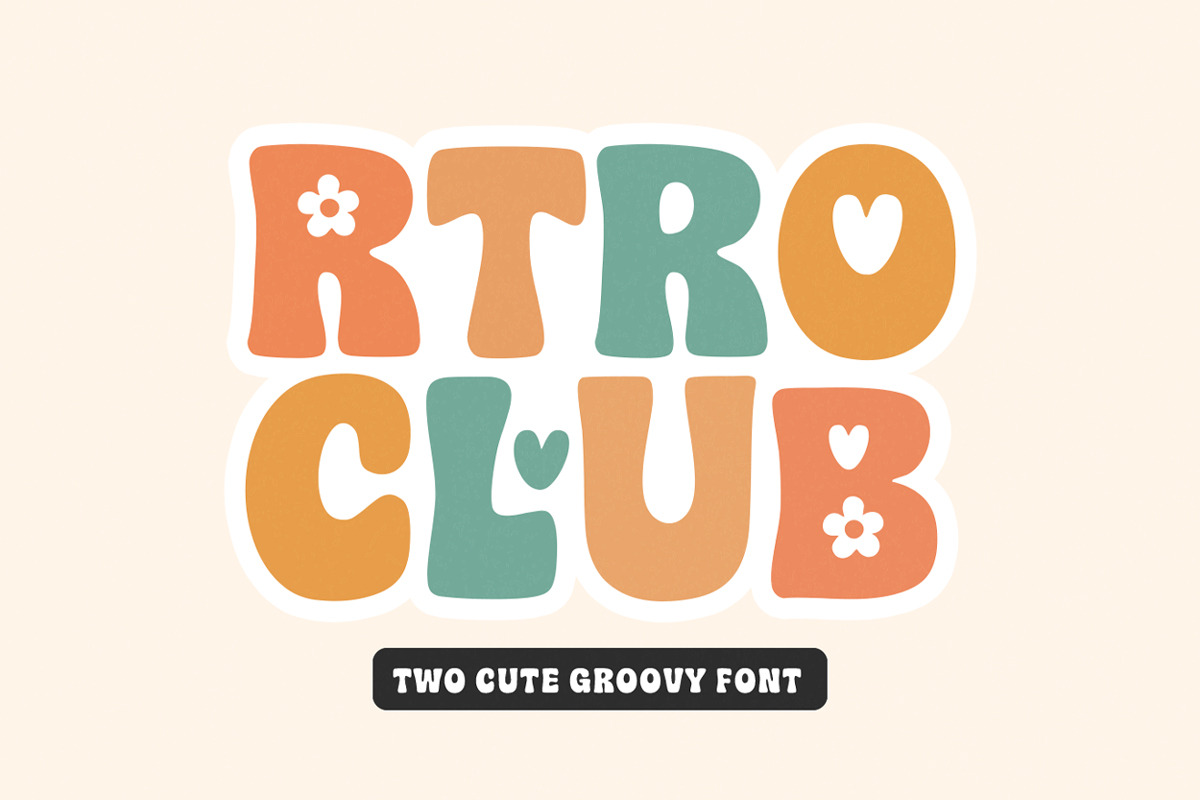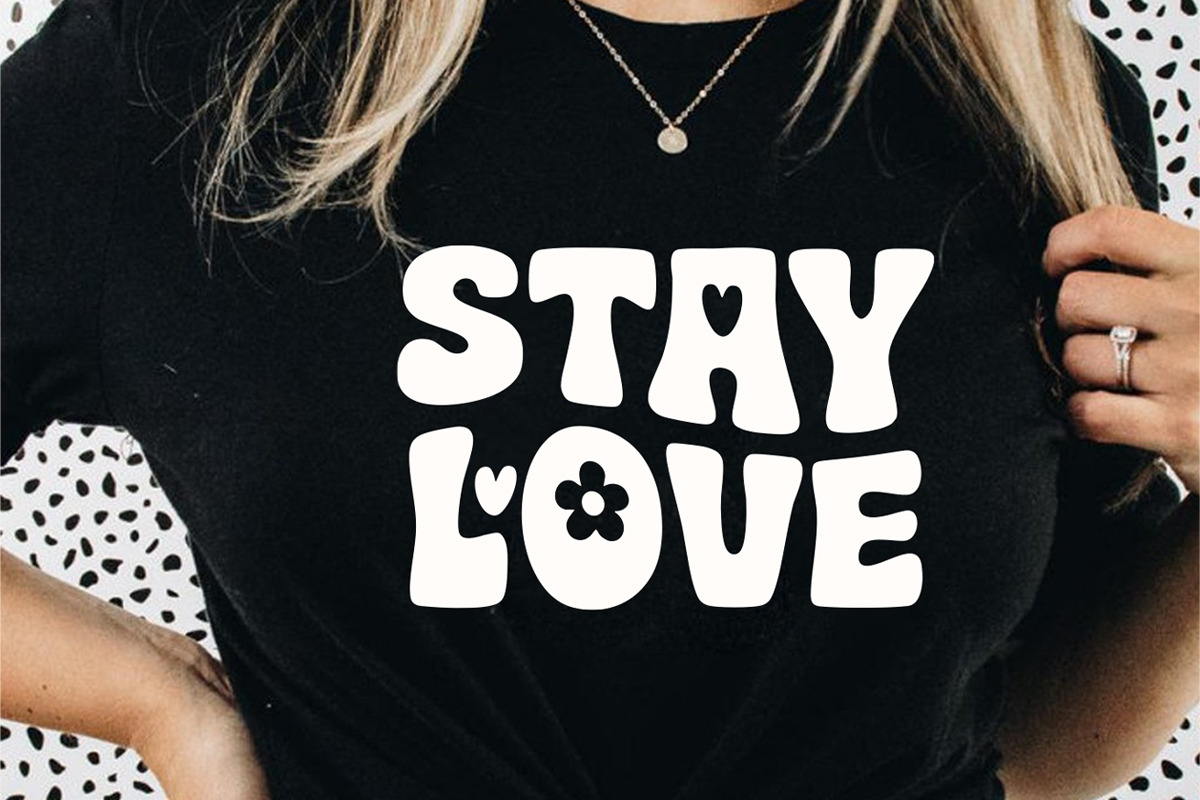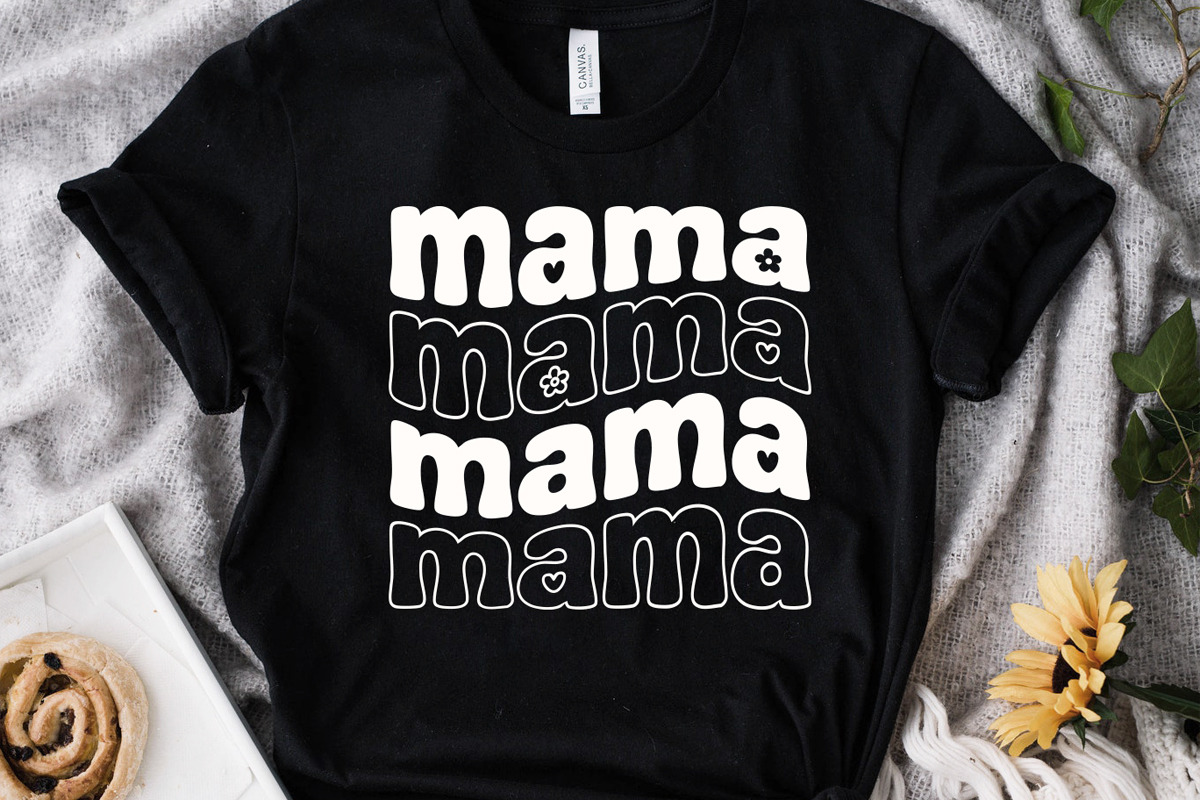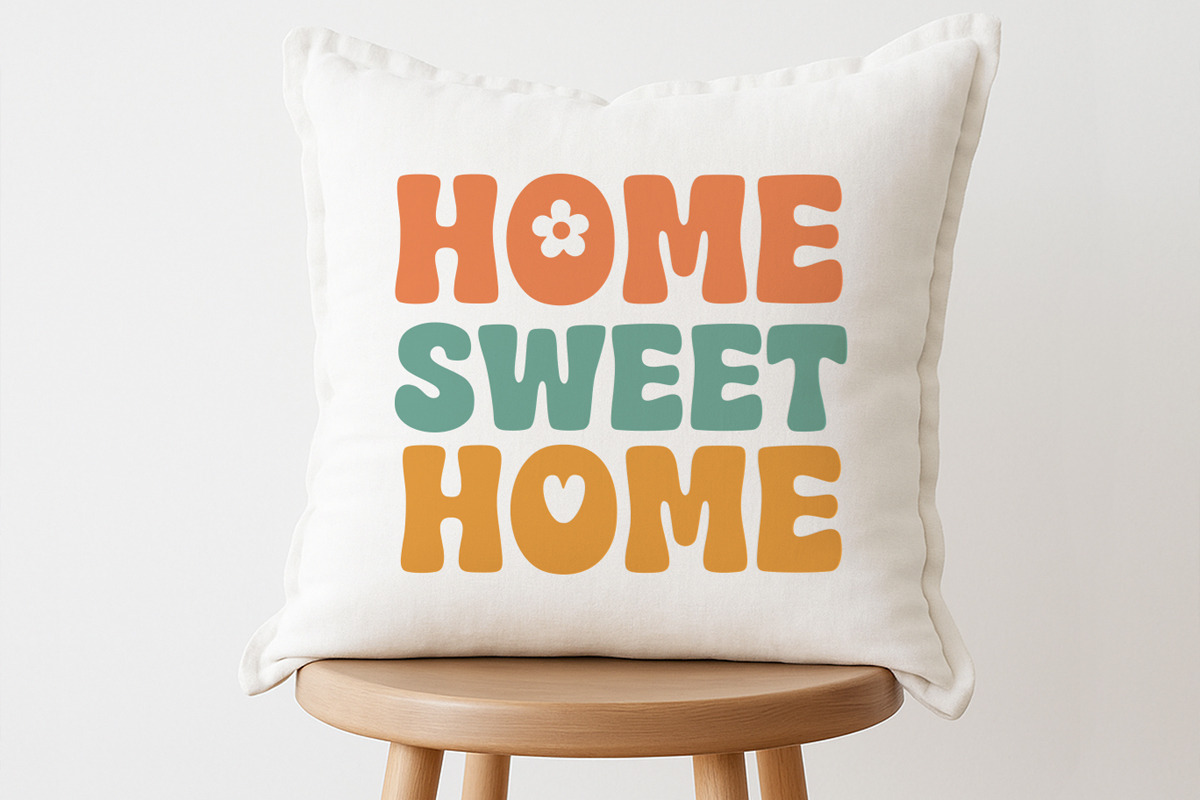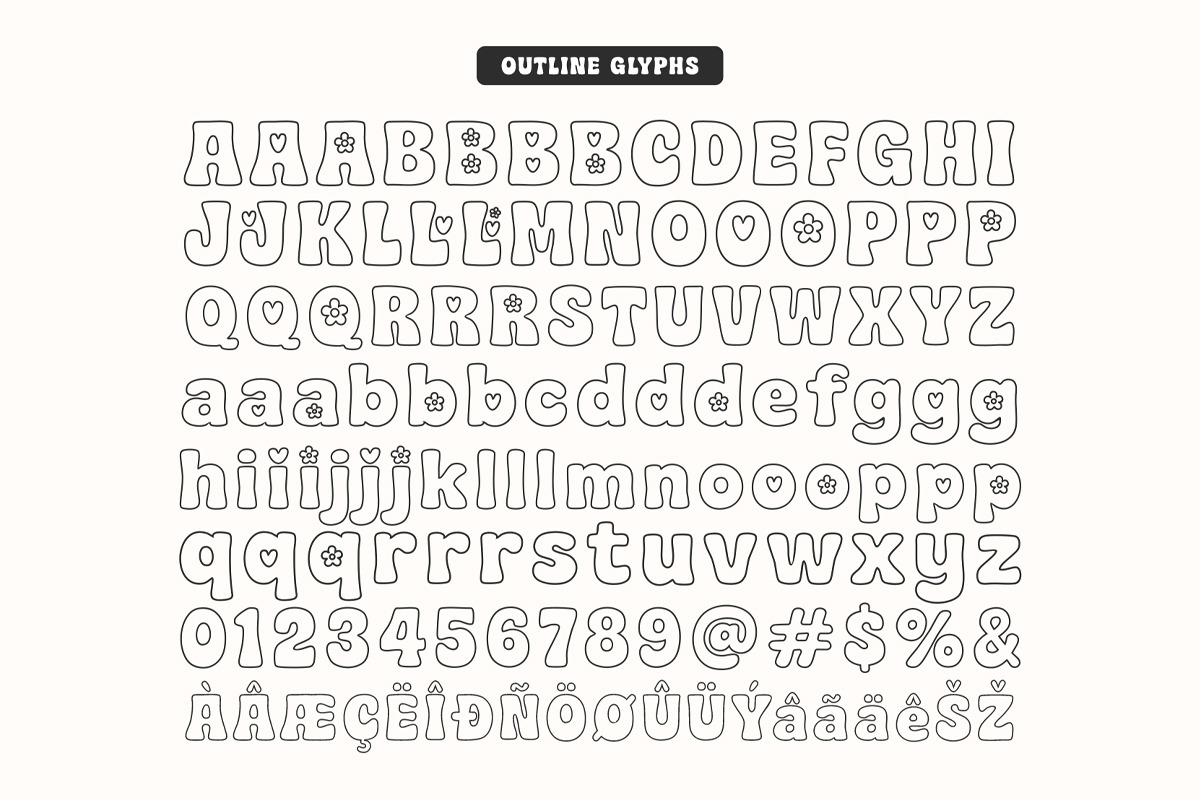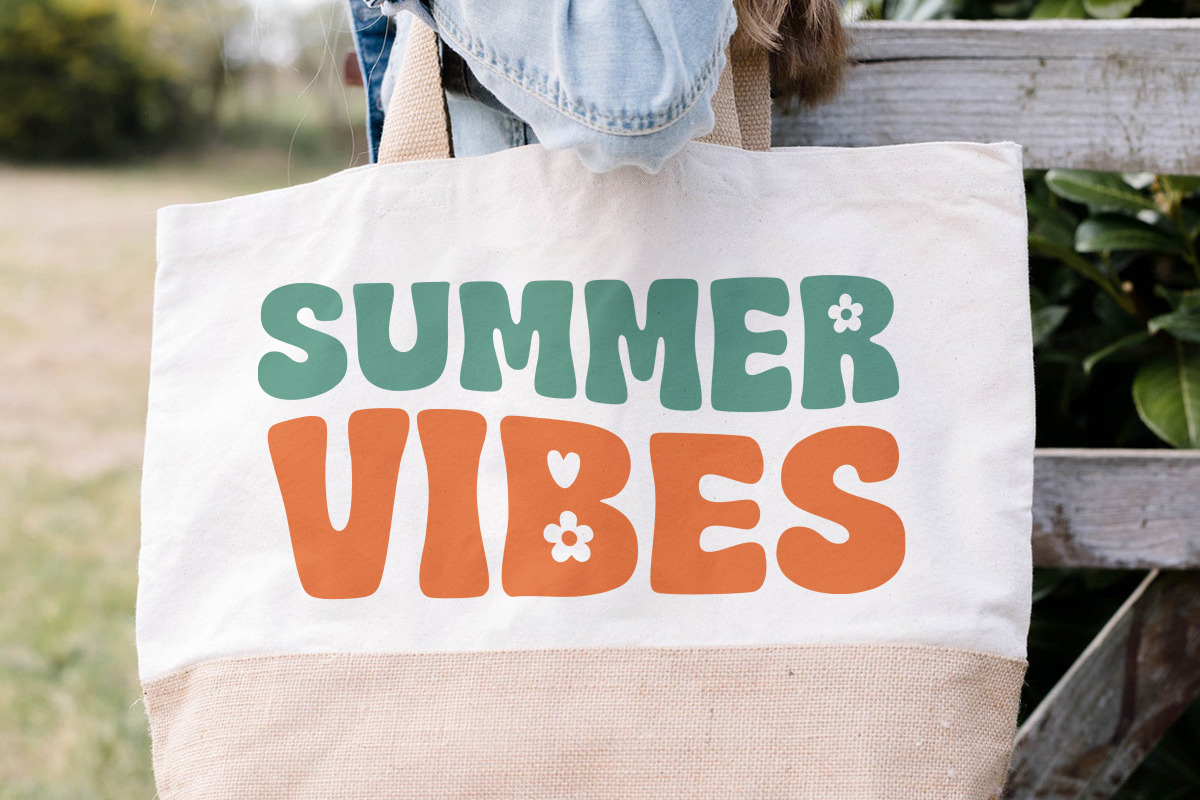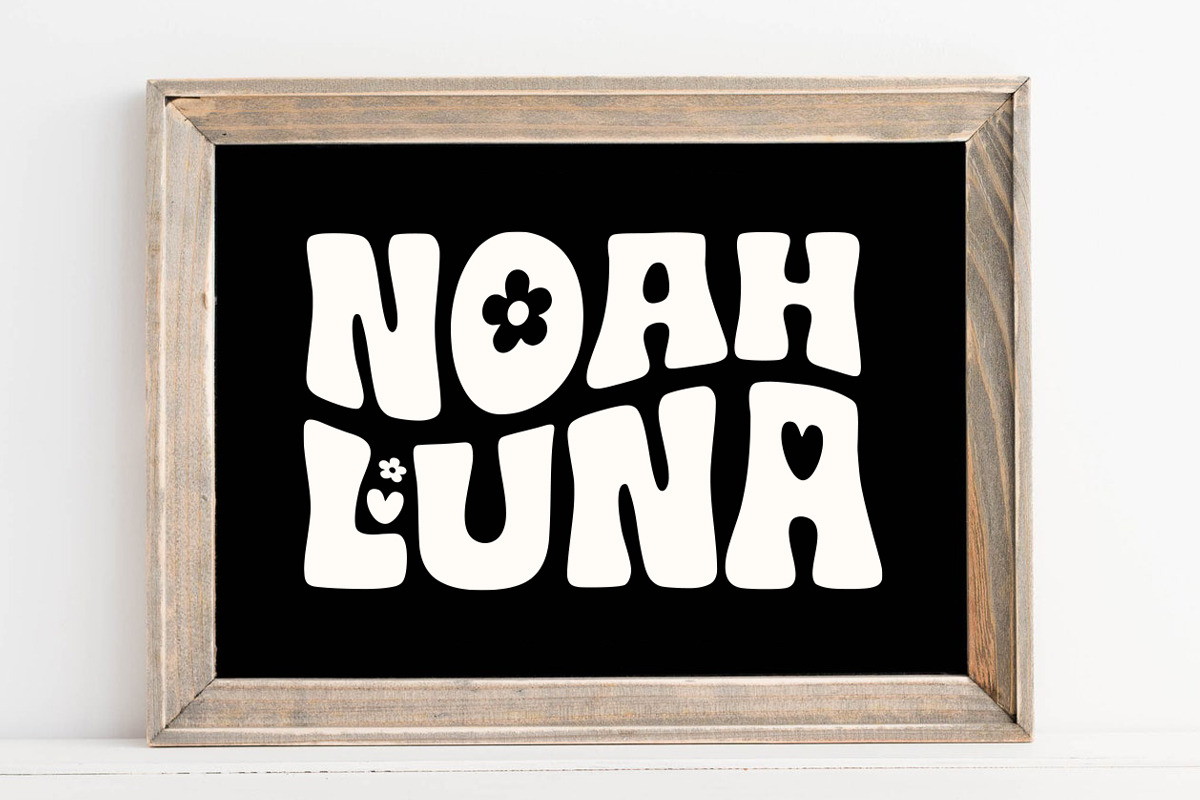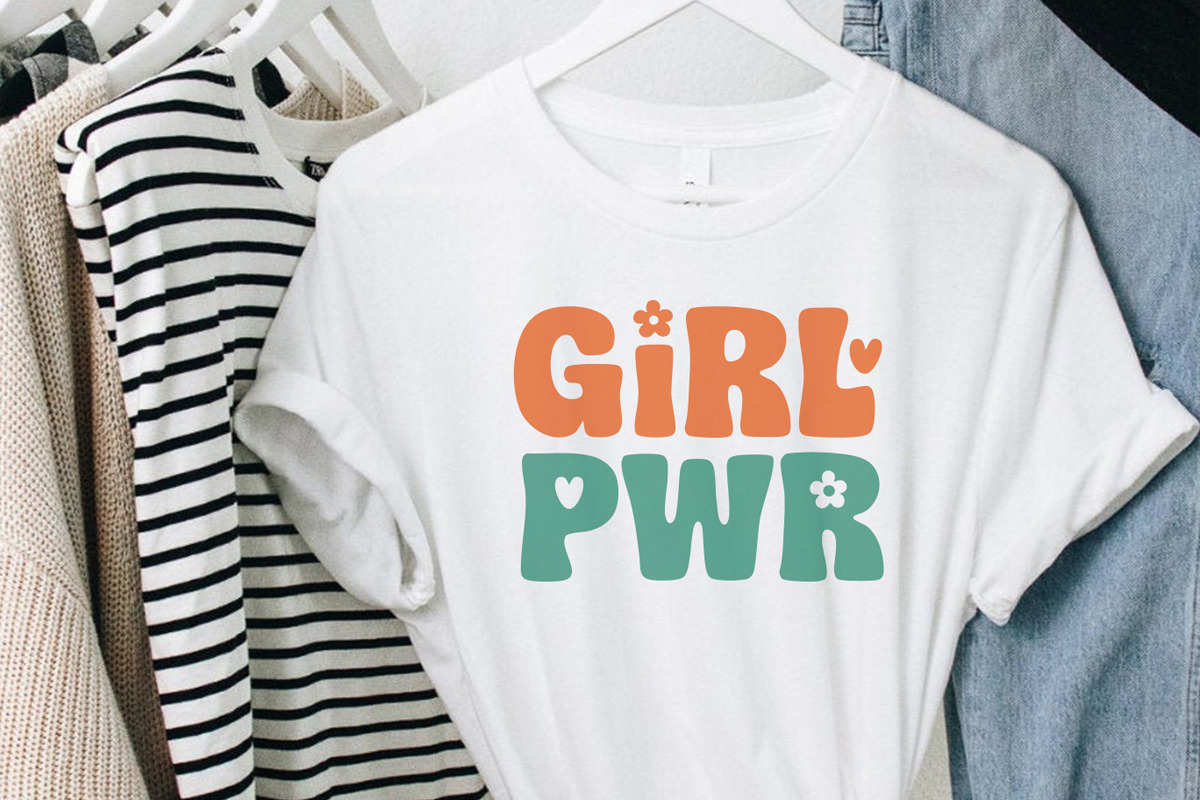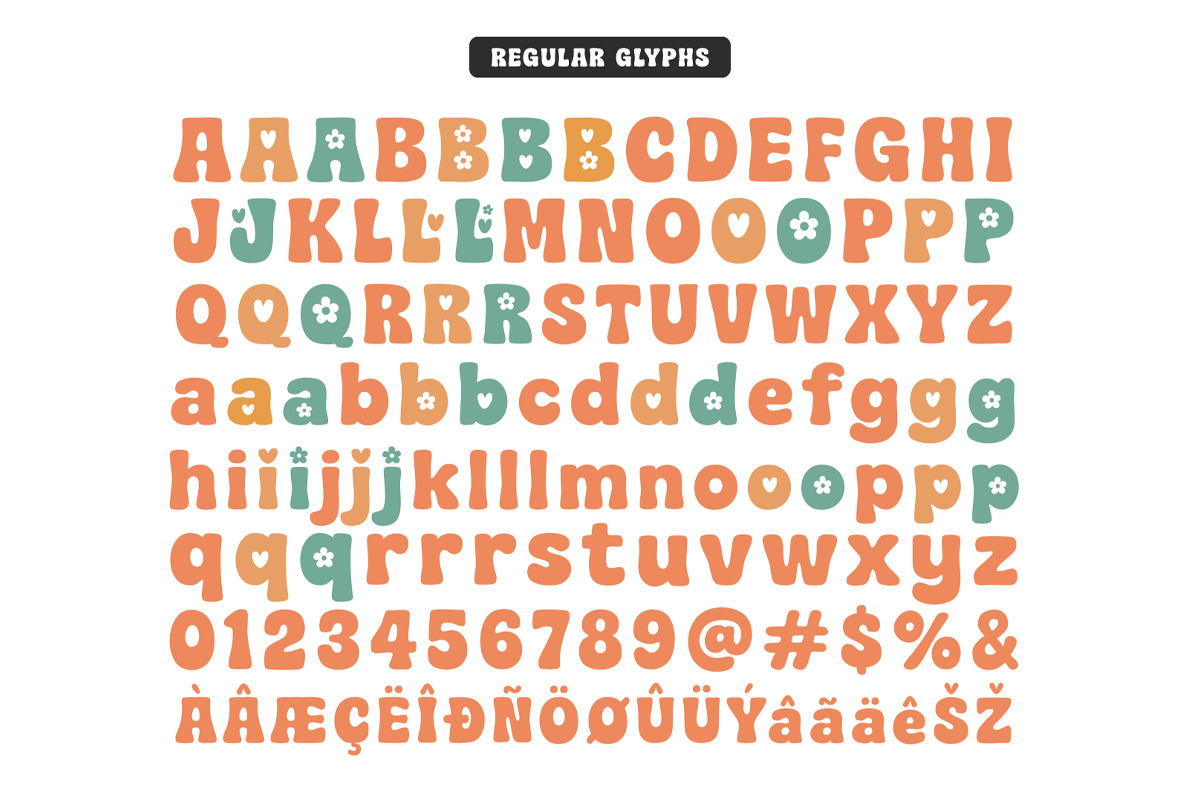
Rtro Club - Groovy Retro Font
Rtro Club is a groovy, retro, boho, 70s and fun display font. Whether you’re using it for crafts, digital design, presentations, or making greeting cards, this font has the potential to become your favorite go-to font, no matter the occasion! It is the best choice for creating eye-catching logos, branding, and quotes. Add it to your most creative ideas, and notice how it makes them come alive!